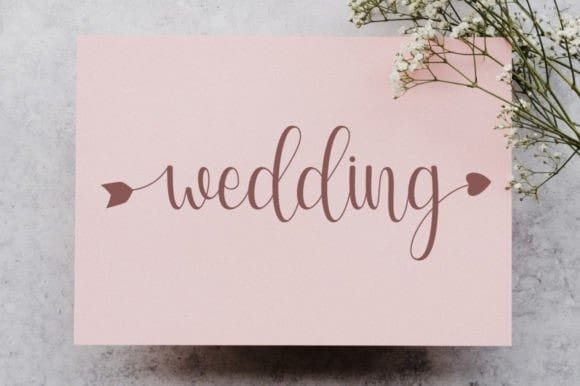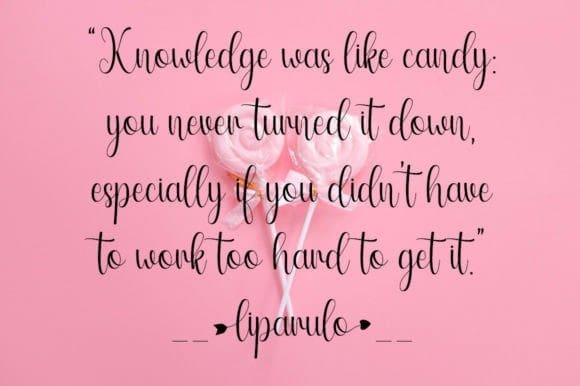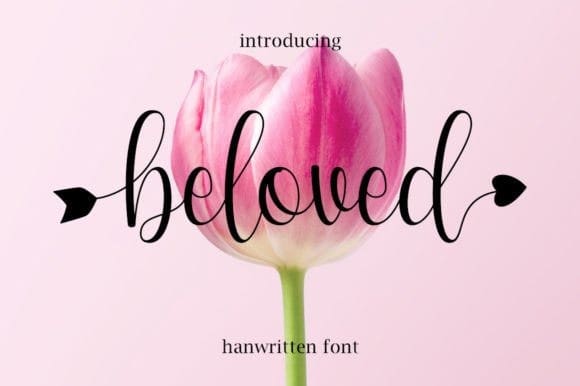
Beloved Calligraphy Font
Beloved Calligraphy Font, is a romantic handwritten font perfect for your favorite projects. Fall in love with its incredibly distinct and timeless style, and use it to create spectacular designs.